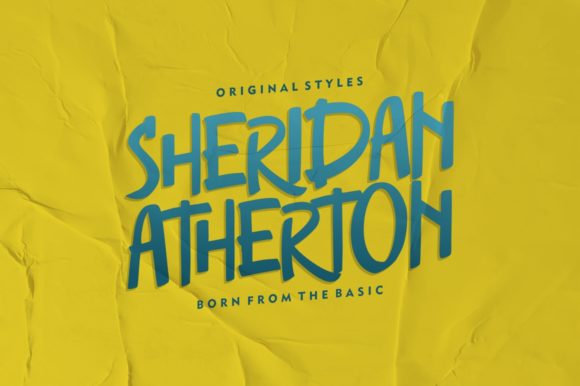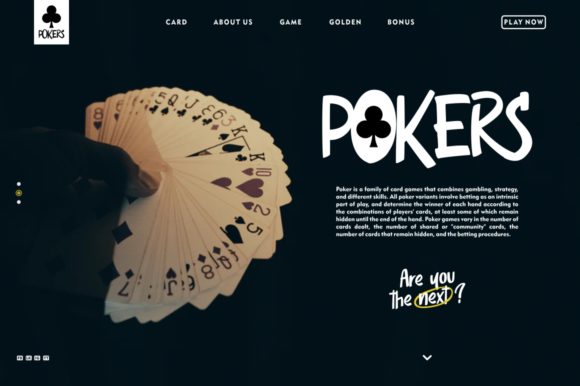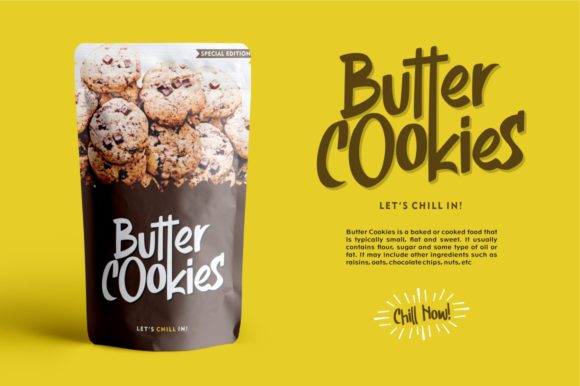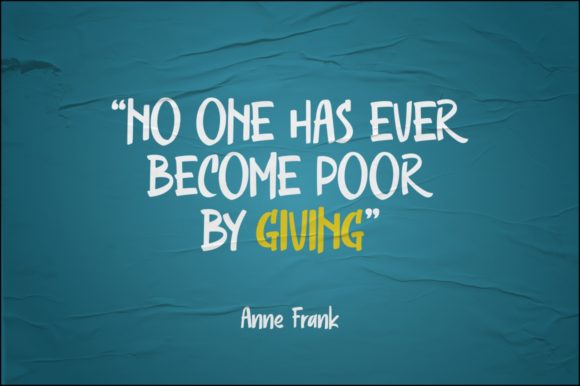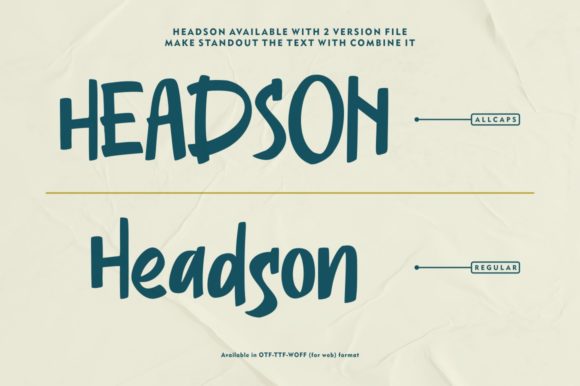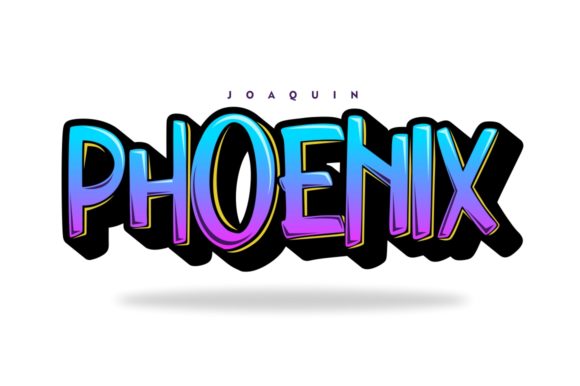
Introduction to Headson Font
Headson combines attractive curves with a fresh urban edge; delivering a stylish script which is guaranteed to add an eye-catching appeal to your logo designs, brand imagery, quotes, product packaging, merchandise & social media posts.
Headson combines attractive curves with a fresh urban edge; delivering a stylish script which is guaranteed to add an eye-catching appeal to your logo designs, brand imagery, quotes, product packaging
Key Features of Headson Font
Why Choose Headson Font?
Headson Font offers exceptional quality and versatility, making it a valuable addition to your design toolkit. Whether you’re creating for personal projects or commercial use, Headson Font delivers professional results.